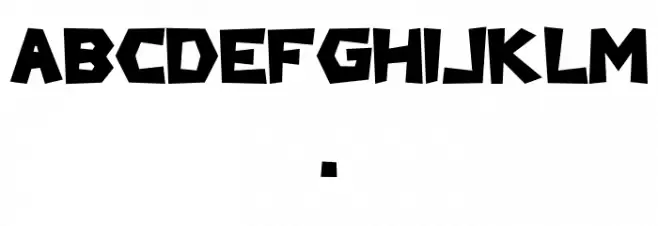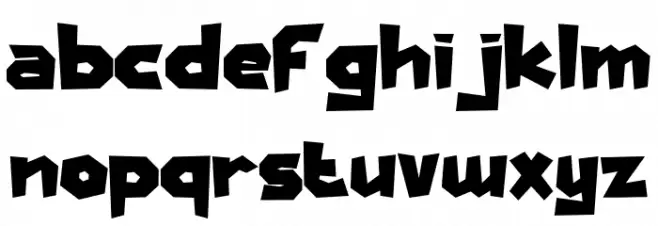
MAGIC SPACE Regular Font
MAGIC SPACE Regular Description
A bold, geometric display font with irregular, angular letterforms and playful, hand-cut edges. The characters have a blocky appearance with varying stroke thickness and a slightly uneven baseline, giving it a whimsical and energetic feel.
Bold, angular display font with playful, irregular shapes from Uncategorized fonts.
- Proposed Projects: Children's books, posters, party invitations, comic titles, branding for creative products.
- Overall Style: Decorative, Playful, Modern
- Use Case: Headlines, Posters, Logos, Event Graphics